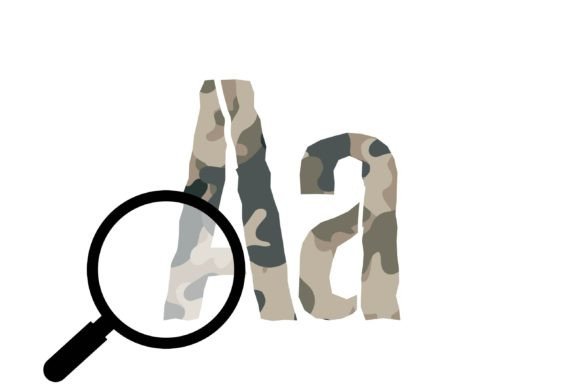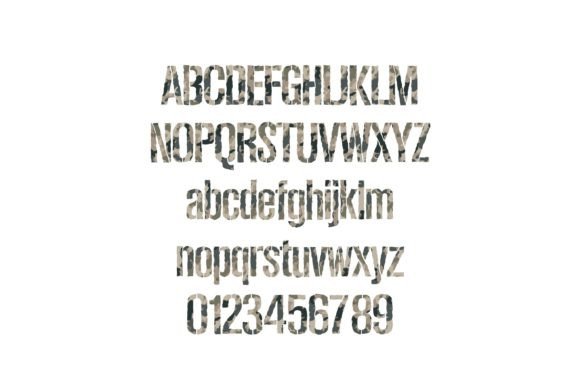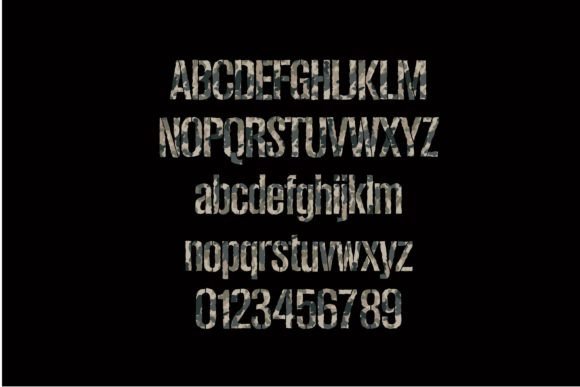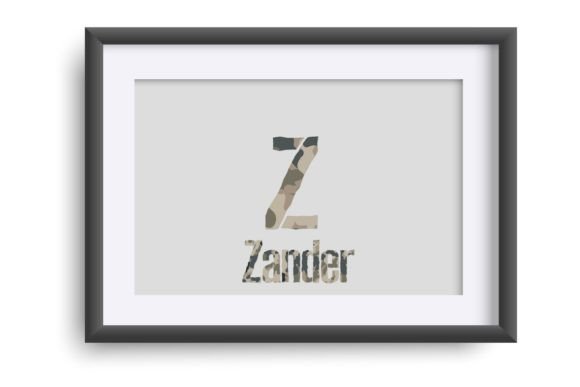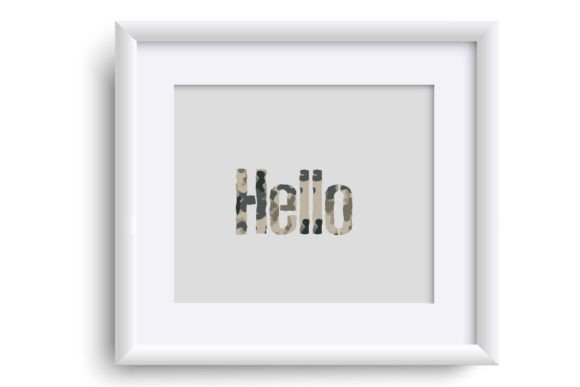
Introduction to Desert Fatigue Font
This full-color font features a textured, stenciled font in a desert fatigue color palette.
Key Features of Desert Fatigue Font
Why Choose Desert Fatigue Font?
Desert Fatigue Font offers exceptional quality and versatility, making it a valuable addition to your design toolkit. Whether you’re creating for personal projects or commercial use, Desert Fatigue Font delivers professional results.